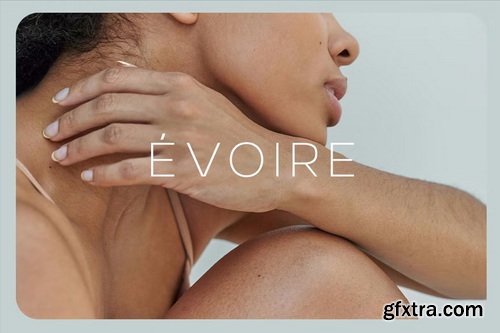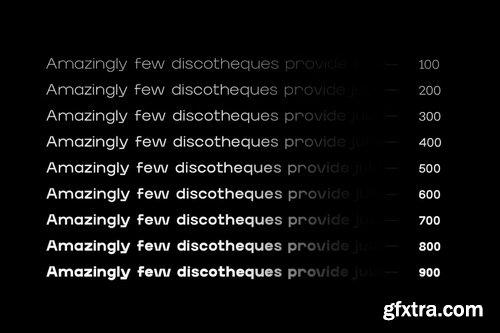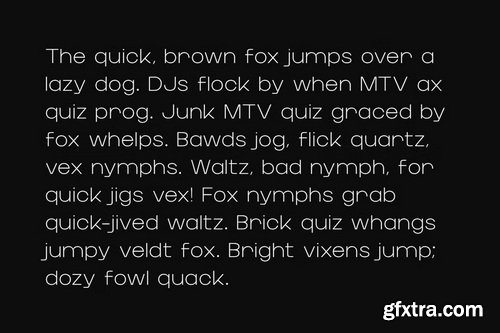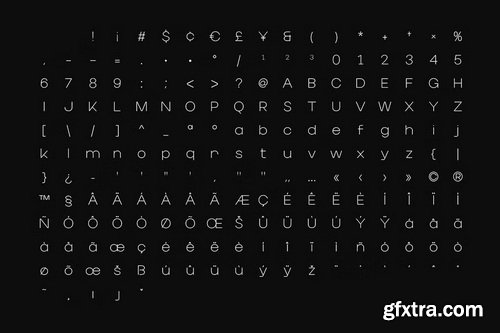
- Olivé Sans-Serif Font Family is a modern, high-fashion typeface crafted for elegance and clarity. Its smooth letterforms, subtle curves, and balanced proportions make it an ideal choice for projects that need both style and readability.
- Inspired by the grace of fashion culture, Olivé offers nine carefully designed weights, from delicate Hairline to bold Black. Each weight includes a matching italic, giving you a complete toolkit for versatile design. Whether you’re working on magazine headlines, luxury branding, stylish lookbooks, or minimalist web layouts, the Olivé Sans-Serif Font Family provides refined readability with a striking visual impact.